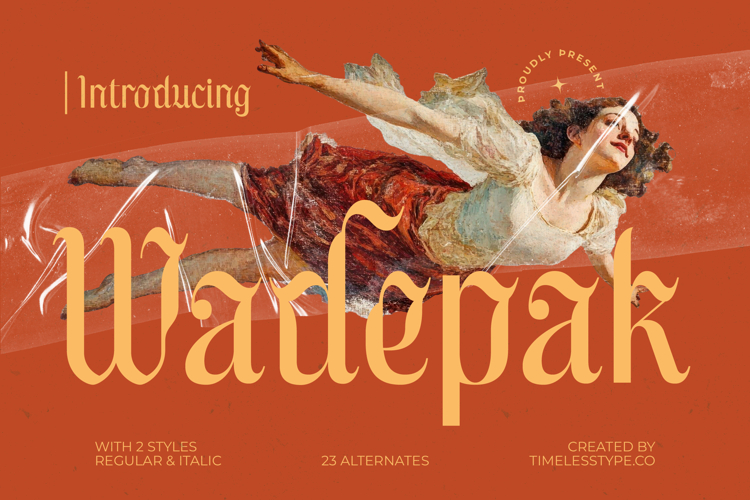
Wadepak - Blackletter Display Serif Font
The Wadepak Typeface is a modern serif font infused with a vintage artistic spirit, blending bold strokes with graceful curves. Designed with 2 styles (regular & italic) and 23 alternates, this typeface provides designers with creative versatility to craft expressive and timeless typography. Its structured yet ornamental forms make it suitable for projects that aim to combine tradition with contemporary elegance, resulting in designs that feel both historical and modern. Wadepak captures attention with its unique letterforms, perfect for visual storytelling and refined branding.
This font is especially effective for editorial design, where it enhances magazine layouts, feature spreads, and book titles with character and sophistication. The alternates and italic variation allow designers to add emphasis and variety, making editorial compositions more engaging and memorable.
In branding and packaging, Wadepak is ideal for artisanal products, cultural brands, fashion houses, and boutique identities. Its ornamental touch conveys authenticity and exclusivity, ensuring logos and packaging stand out with a crafted and distinctive voice.